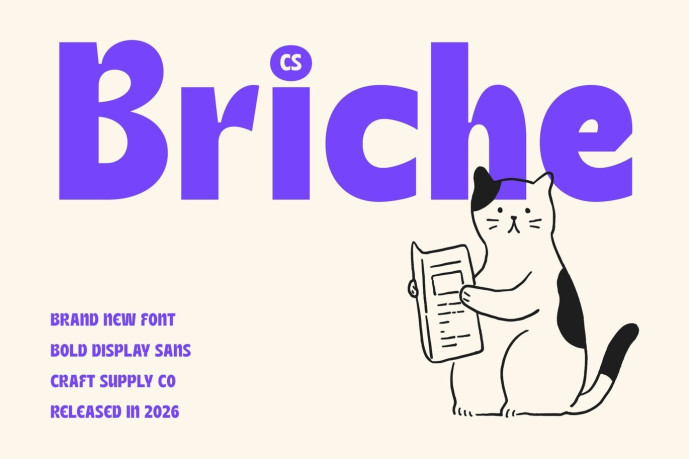
Briche – Bold Sans Serif Font
Designer: Craft Supply Co.
CS Briche – Modern Sans Serif Font: Where Chunky Boldness Meets Playful Charm Bold Chunky Forms with Strong Visual Presence This is a modern sans serif font designed with a playful, bold, and chunky style that instantly captures attention. Its strong letterforms and substantial proportions create a powerful visual presence, ensuring every word stands out with confidence and clarity. Built for display purposes, the font delivers maximum impact while maintaining a friendly and approachable personality.
Playful Design with Expressive Energy This font brings a sense of fun and creativity to any design. Its rounded, bold construction creates a welcoming appearance that feels energetic and engaging. The balance between strength and playfulness makes the font versatile enough for projects that seek both attention-grabbing impact and positive visual appeal.
Contemporary Style with Creative Versatility This font delivers a typographic identity that feels fresh, vibrant, and memorable. Its bold forms and playful nature allow it to adapt effortlessly across a variety of creative applications, making it an excellent choice for designers looking to add personality and confidence to their work.
Perfect for Displays, Headlines, and Posters Perfect for display typography, branding projects, posters, packaging, advertising campaigns, social media graphics, merchandise, event promotions, product labels, and creative visual identities. Its distinctive chunky forms make it ideal for logos, headlines, titles, and promotional materials that seek to communicate fun, confidence, and modern creativity.